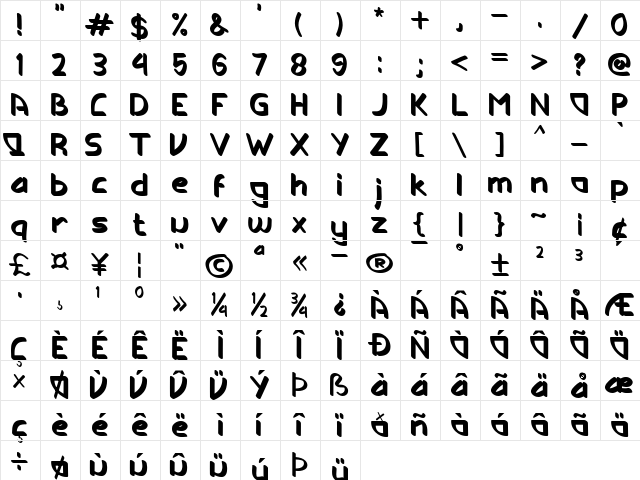
GONDES Regular
Design Context for GONDES Typeface
GONDES is a composed and adaptable typeface that performs quietly and consistently across a wide range of design contexts.